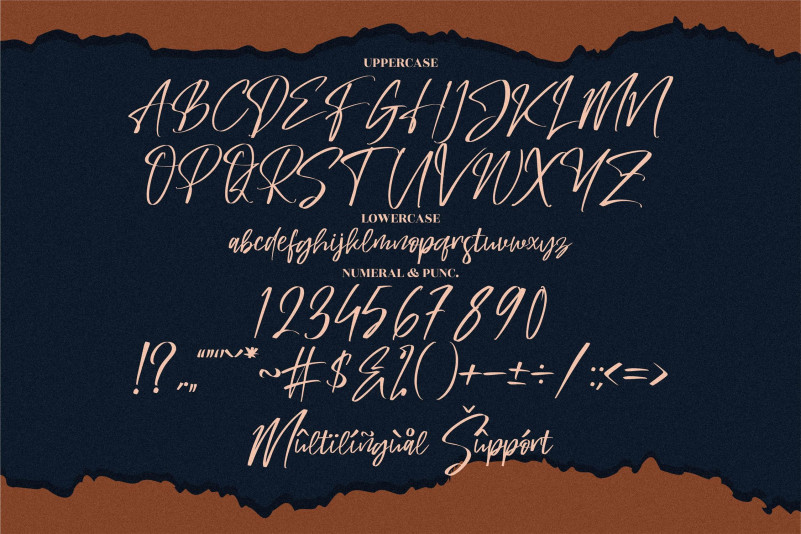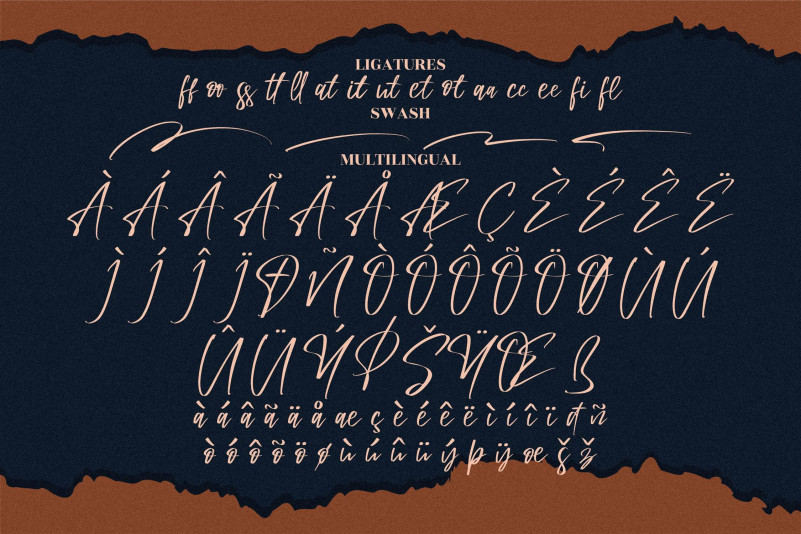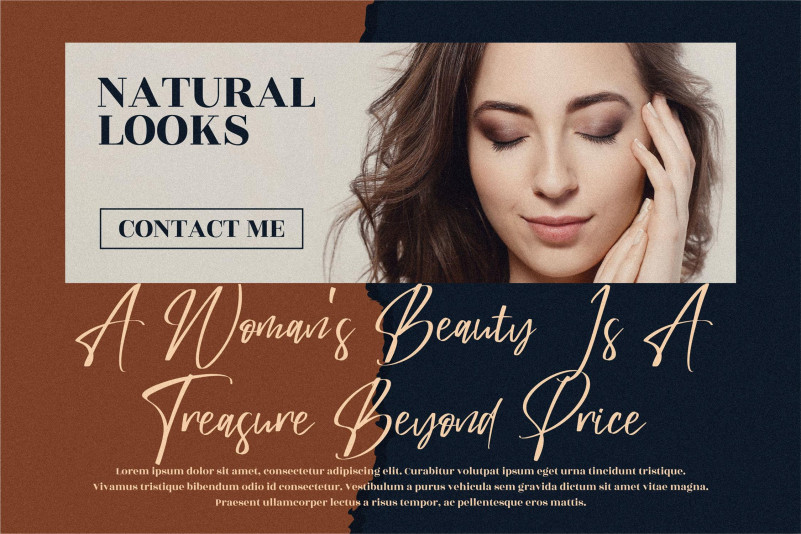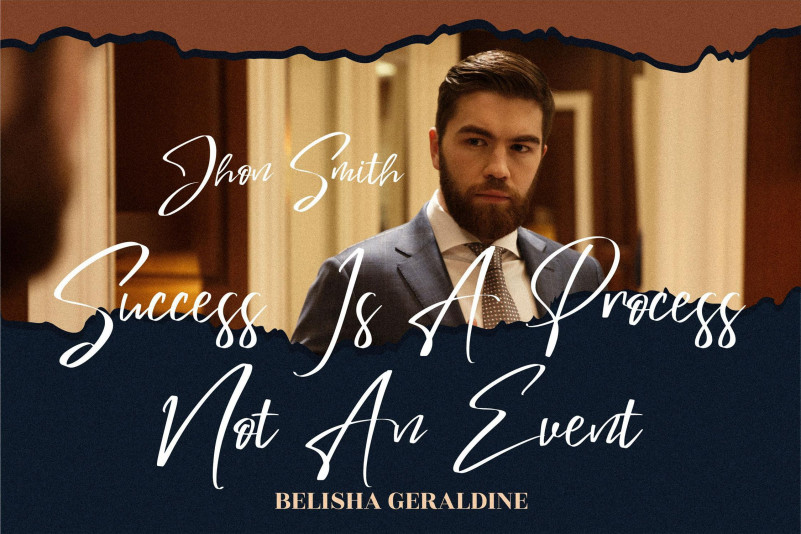
Mastille Attedro Font
Mastille Attedro Script Font
This is a sweet and cursive handwritten font. This gentle font will look gorgeous on a variety of design ideas. It will add a joyful and romantic touch to each of your projects!